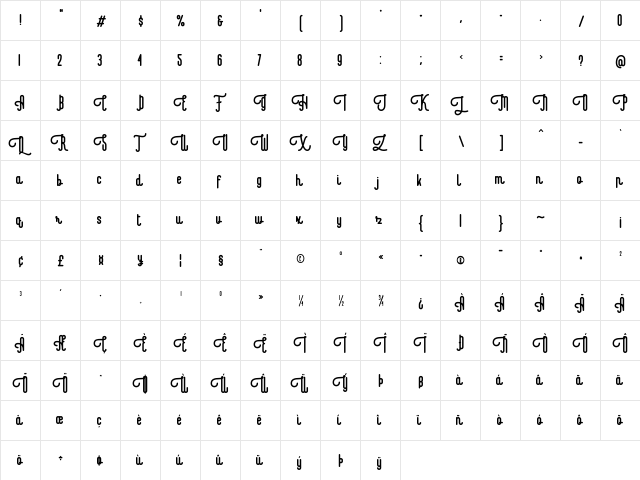
Revolage Script
| Style | Script |
| Foundry | FallenGraphic |
| Designer | Vava Aryanto |
Design Context for Revolage Typeface
Revolage flows with the natural rhythm of handwritten lettering, making it ideal for designs that call for warmth and personal expression.
Font Pairing: Combine Revolage with a simple geometric sans for maximum contrast — the tension between flowing curves and clean structure is a classic typographic pairing.
Pro Tip: Pair Revolage with a clean sans-serif for supporting text. The contrast between fluid script and geometric structure creates an elegant typographic hierarchy.